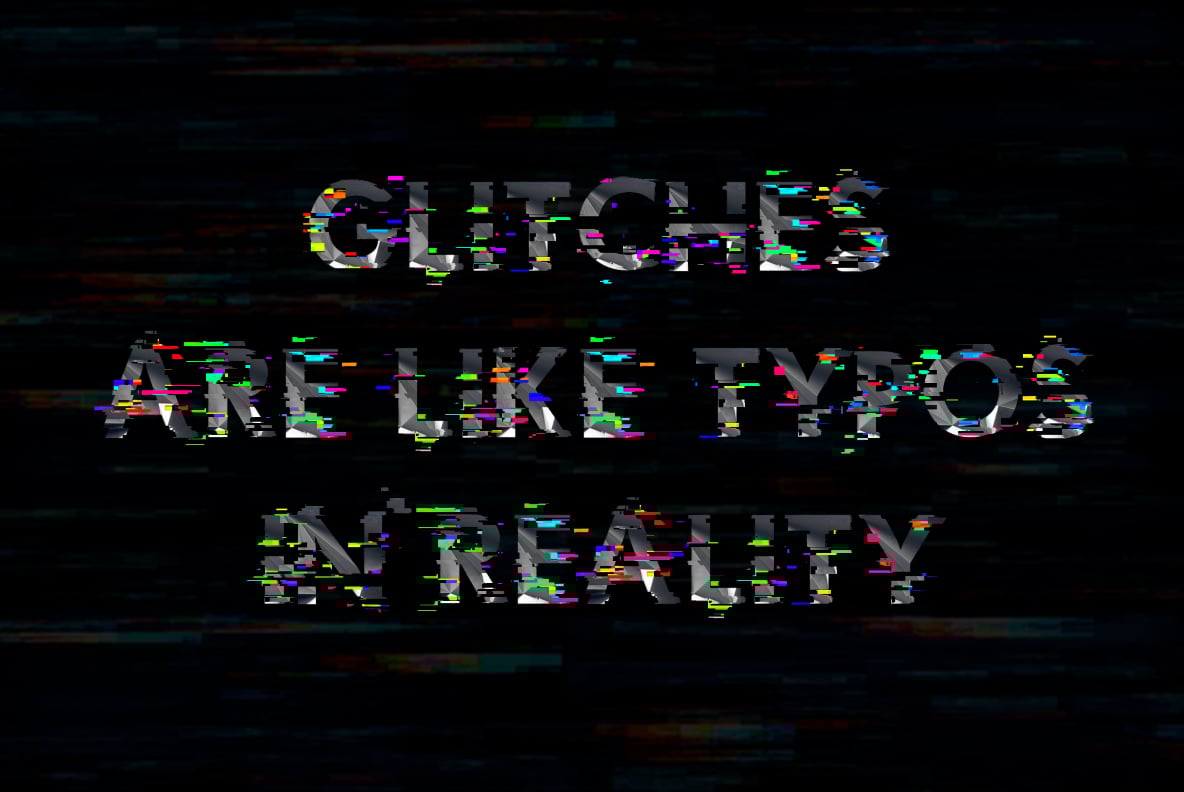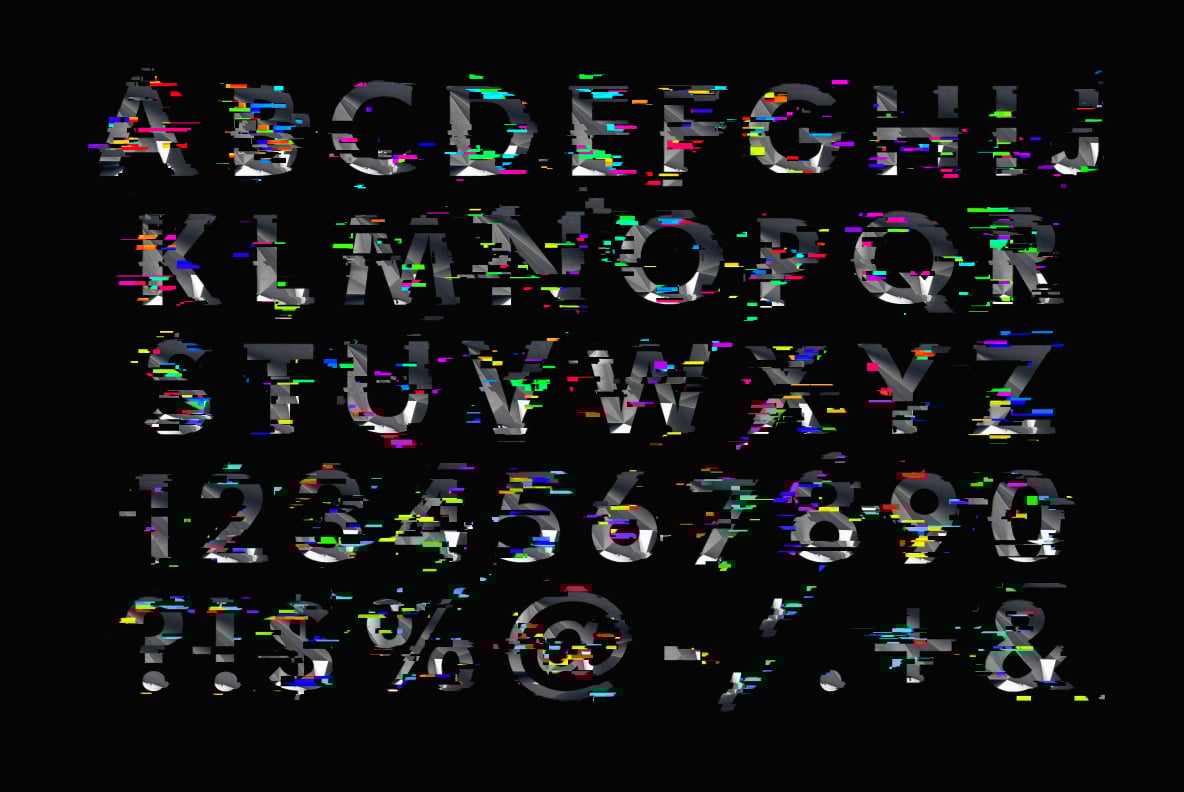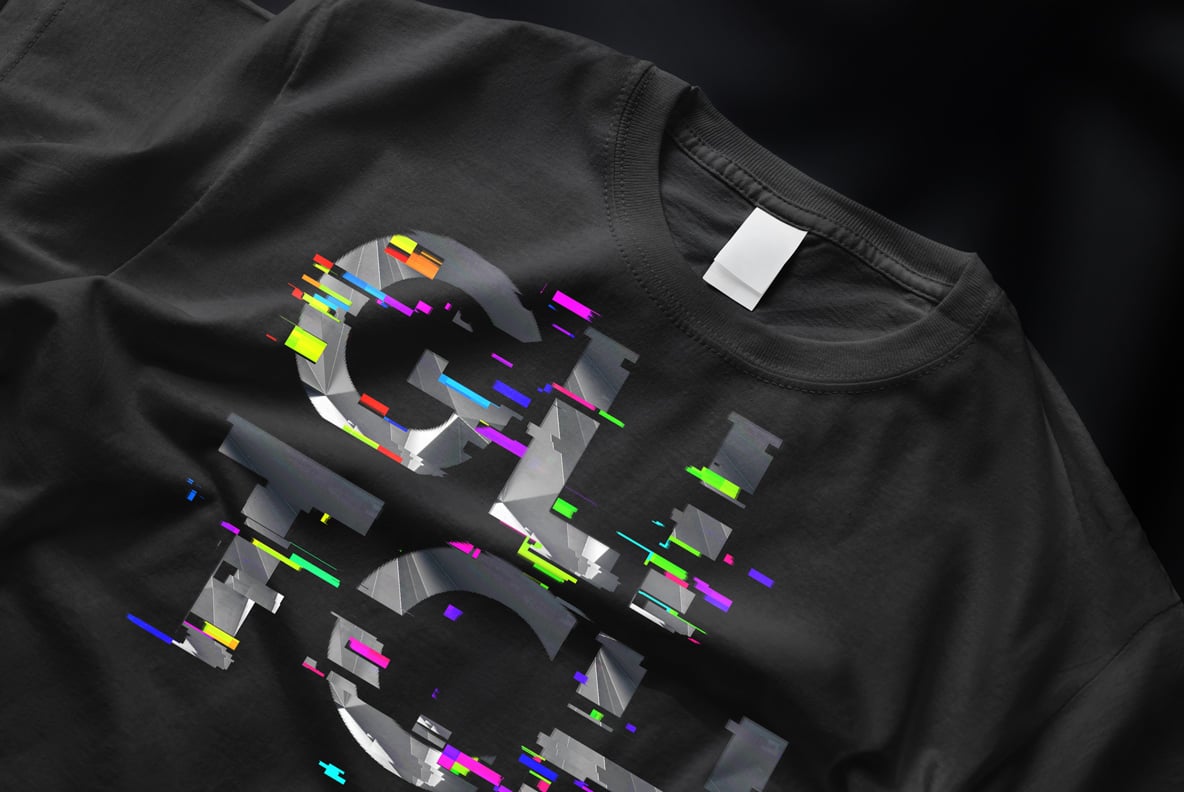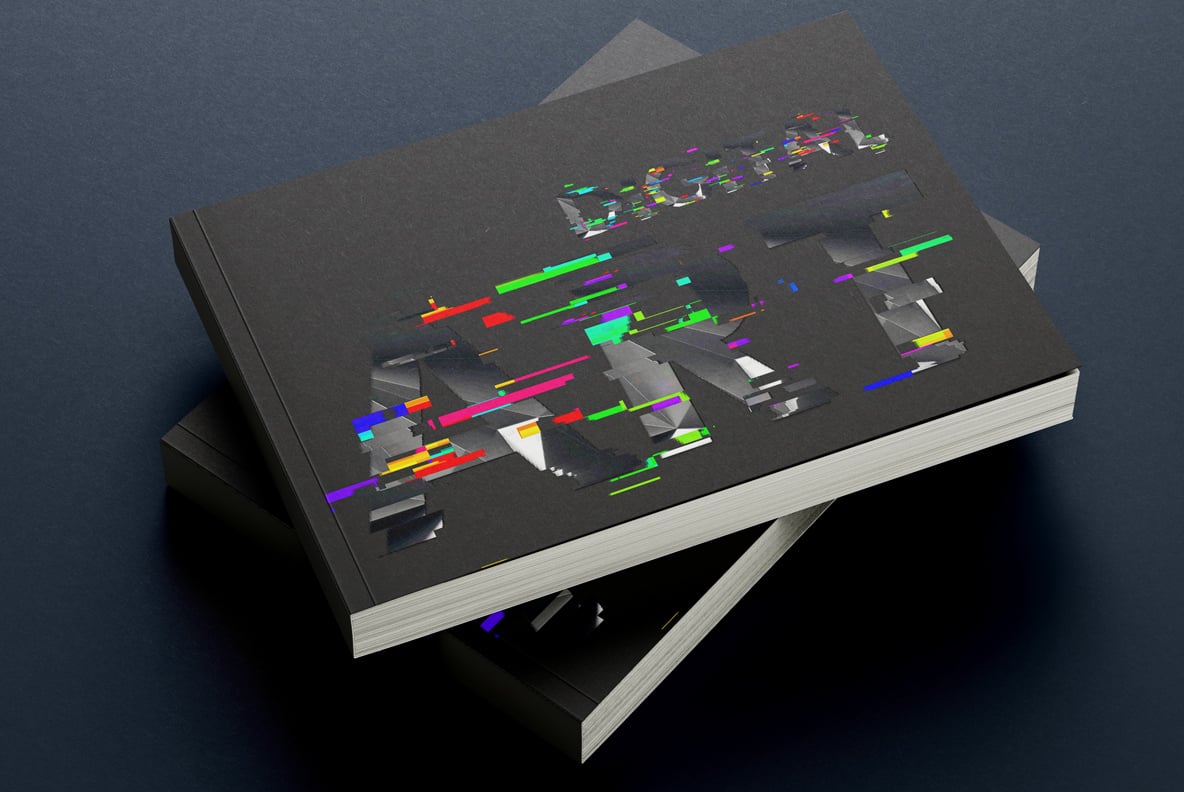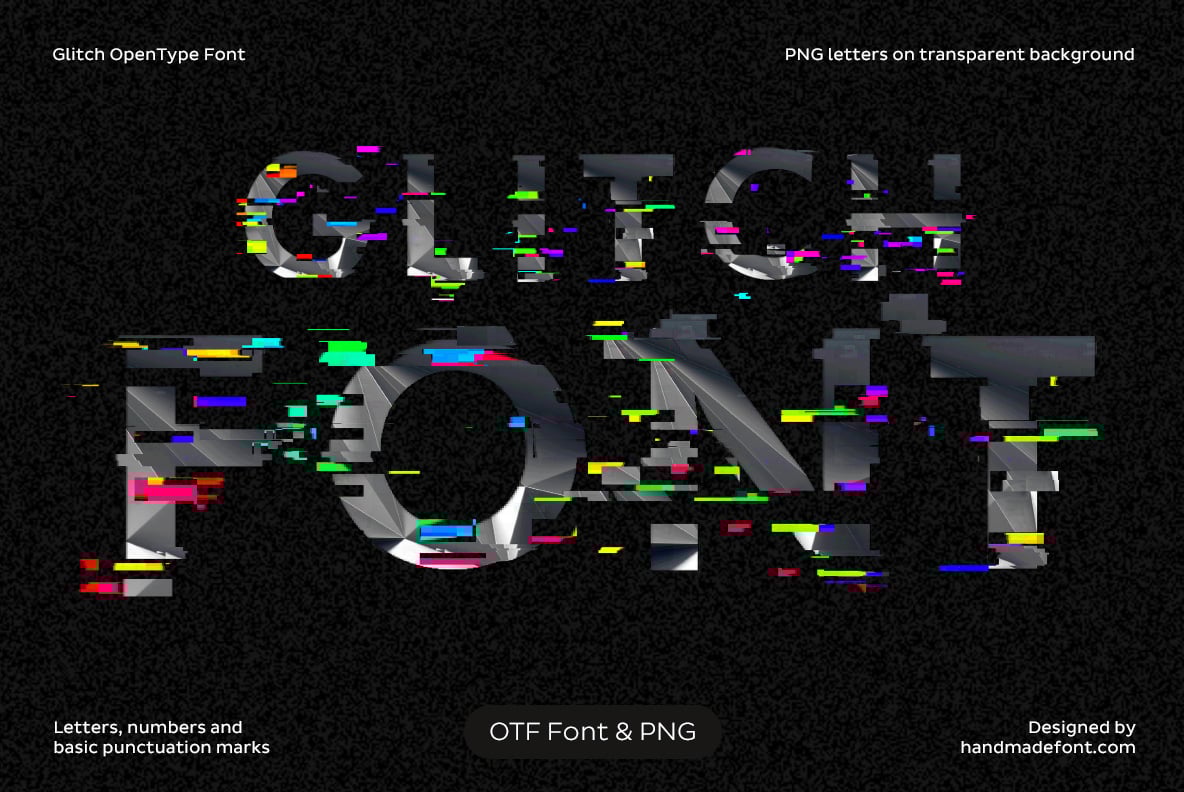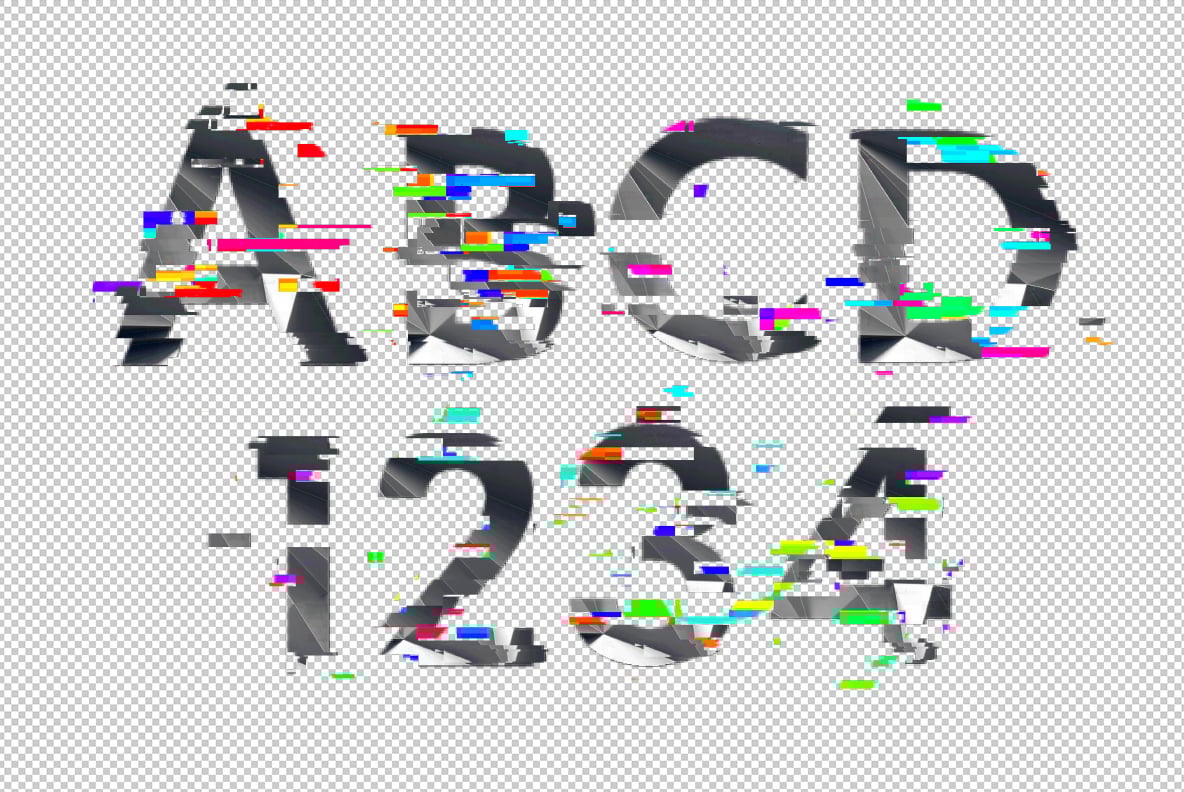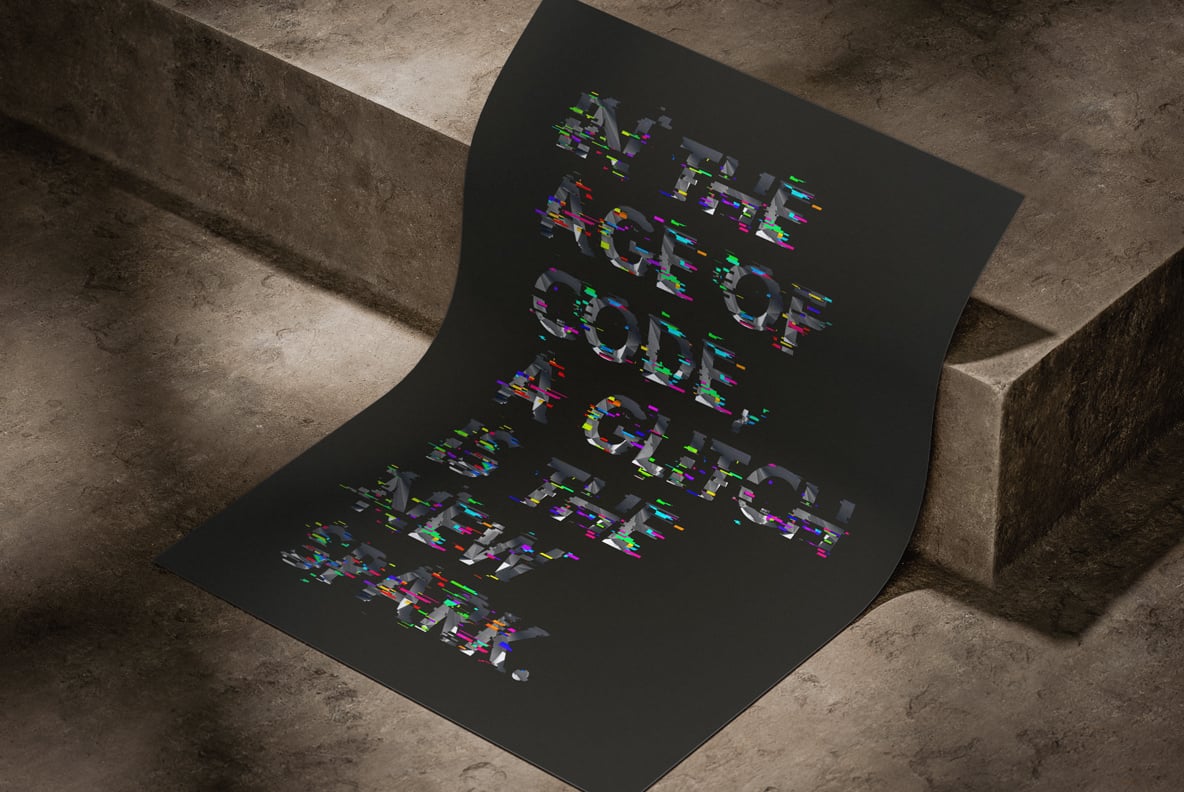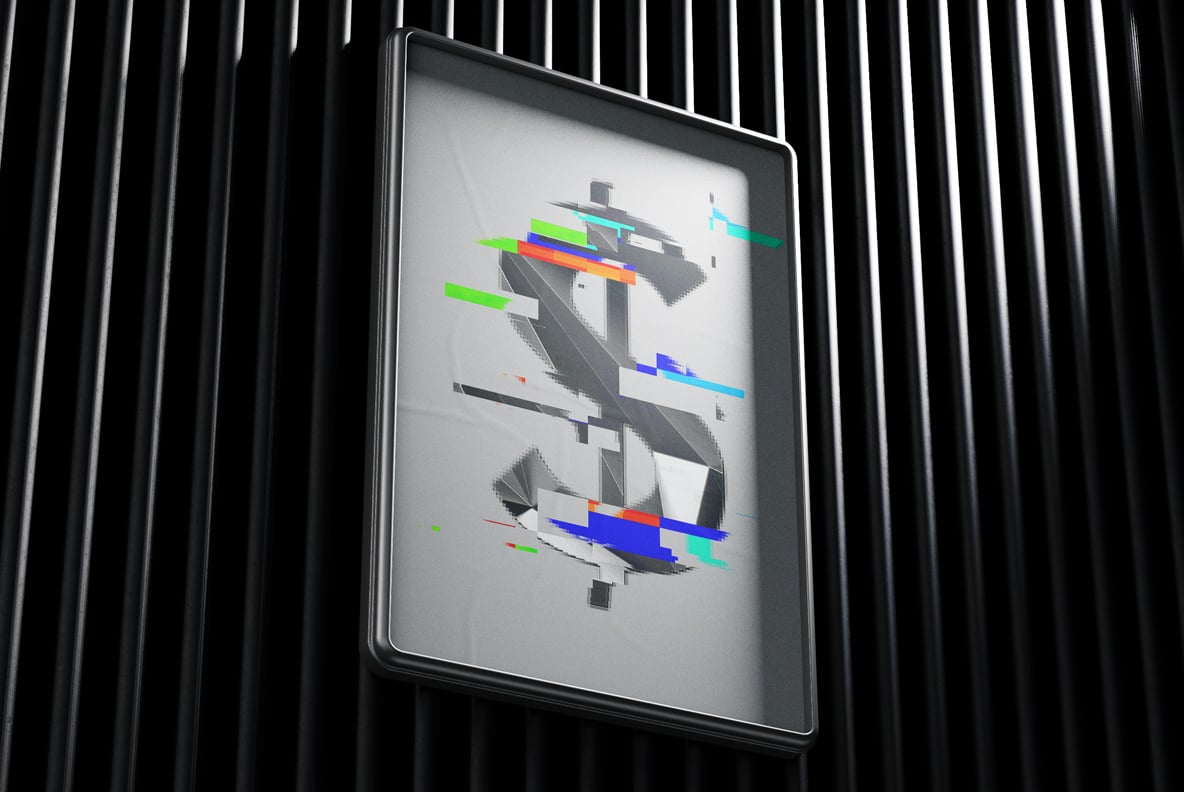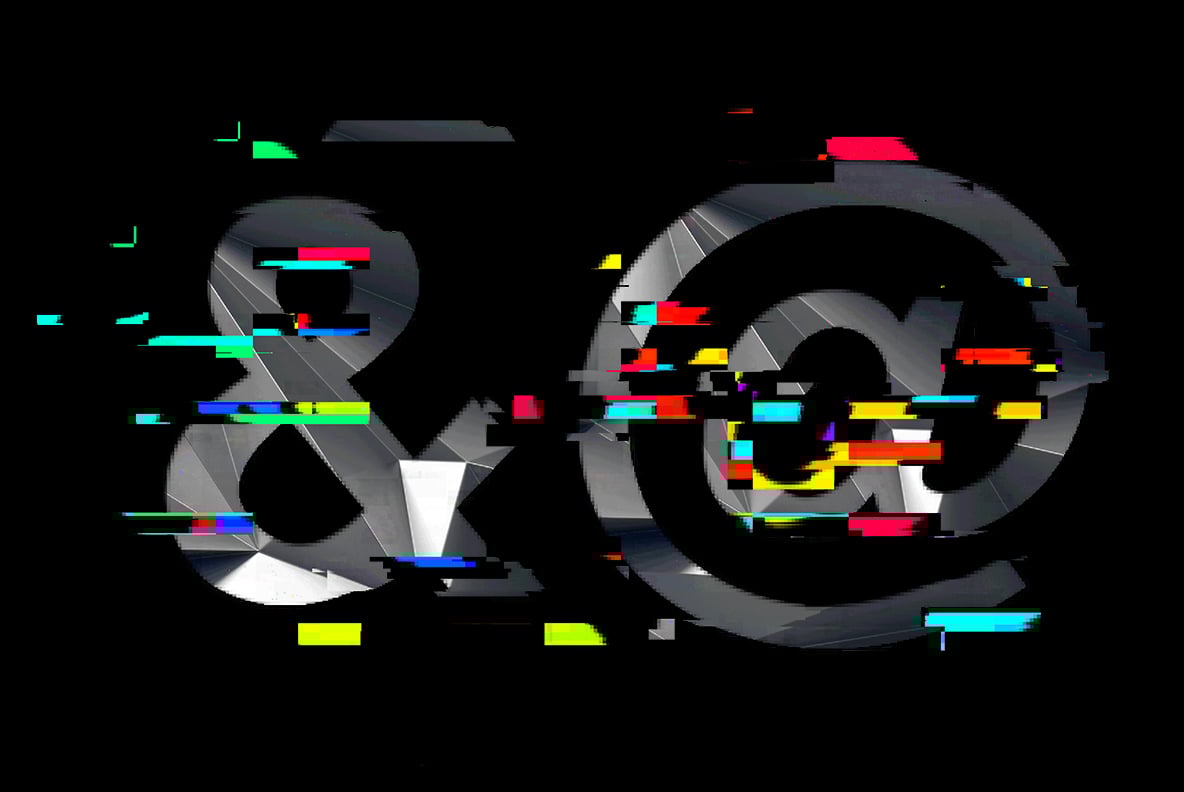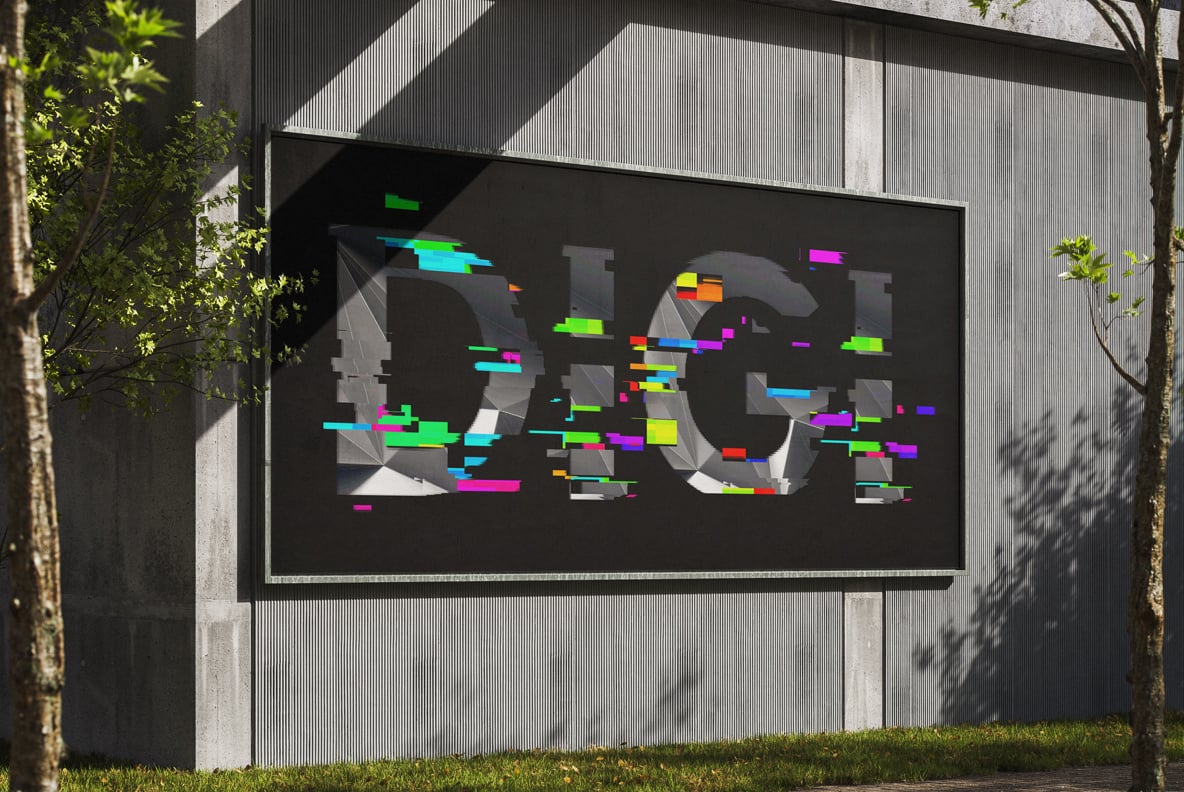
Glitch Font
Glitch Font is a bold, futuristic typeface that crackles with digital energy and cyberpunk vibes. Each letter is meticulously fragmented with pixelated errors, neon streaks, and visual distortions—resembling a digital signal breaking apart. This font captures the essence of electronic chaos, blending sharp metallic forms with colorful static interference, evoking memories of broken screens and scrambled code. Glitch Font is perfect for tech posters, gaming visuals, edgy branding, and any creative project that needs to look glitchy, experimental, and undeniably cool. It’s a digital disruption turned into a design statement—where the flaw becomes the feature.
A high definition OpenType Font. Contains uppercase characters, numerals and basic punctuation. (Draw height roughly 800 pixels). All letters and glyphs that comprises this font you can see on the preview.